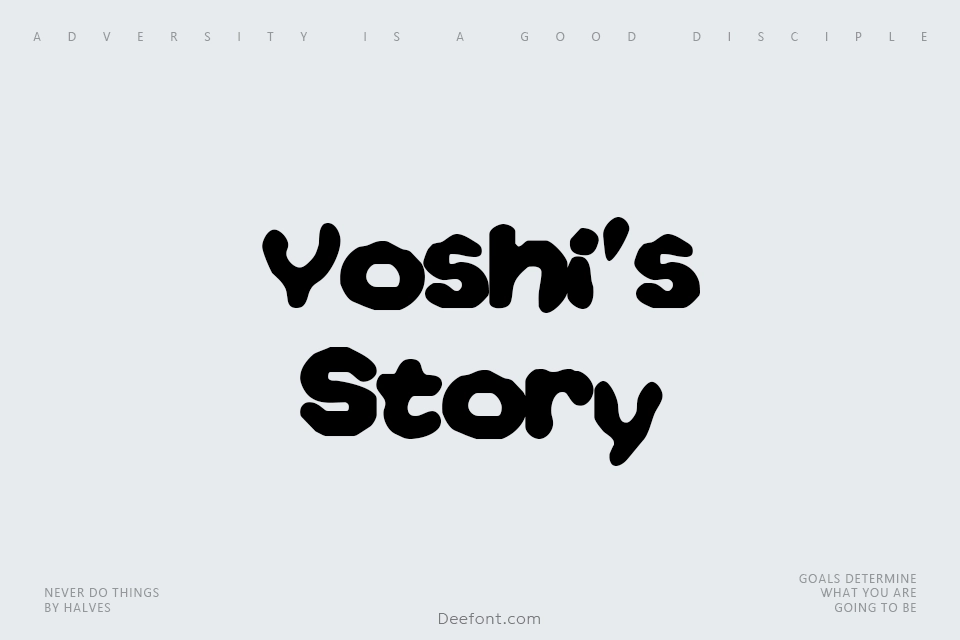
Yoshi’s Story Font
Yoshi's Story is a delightful fancy and cartoon-style display font designed by Ænigma (Brian Kent). Originally inspired by the iconic Nintendo 64 game, this whimsical typeface features playful, rounded characters that bring joy and creativity to any project. Perfect for game design, children's content, promotional materials, and creative layouts, the font captures the vibrant essence of video game aesthetics with its charming glyphs and expressive letterforms. With 72 carefully crafted characters, Yoshi's Story combines nostalgic gaming appeal with modern design versatility, making it an excellent choice for designers seeking character-driven typography that stands out.